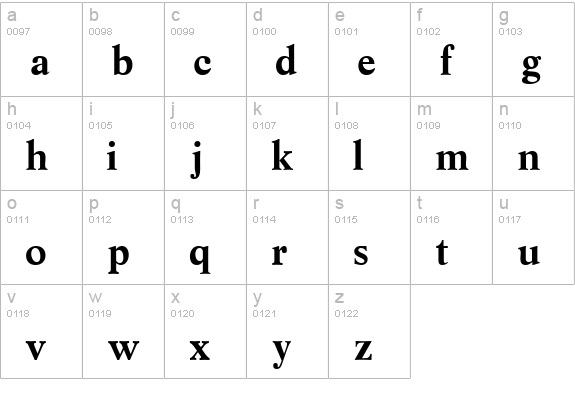
ResourceSSK Bold Font Details
ResourceSSK Bold is a strong, high-contrast variant in the ResourceSSK typeface family \xE2\x80\x94 well suited to headlines, attention-grabbing titles, and strong calls-to-action.
ResourceSSK Bold is a visually striking and bold font that exudes confidence and power. Its strong and commanding presence makes it perfect for headlines, titles, and other attention-grabbing designs. With its thick and prominent letterforms, it demands attention and ensures that your message is communicated with impact. What sets ResourceSSK Bold apart is not only its impressive aesthetics but also the fact that it is freely available to download at FontsMarket.com. This means that you can add this remarkable font to your design arsenal without any cost. Whether you are a professional graphic designer or an aspiring artist, having access to high-quality fonts like ResourceSSK Bold can greatly enhance your creative projects. ResourceSSK Bold offers a wide range of applications, from creating eye-catching posters and flyers to designing captivating logos and branding materials. Its bold and assertive strokes are perfect for making a statement and grabbing the viewer's attention instantly. Additionally, its legibility ensures that your message is clear and easy to read, even from a distance. This font's versatility is further enhanced by its compatibility with various design software and platforms, making it convenient to use in different creative projects. Whether you are working on a print design or a digital project, ResourceSSK Bold will adapt seamlessly to your requirements, ensuring consistent and impactful typography. In conclusion, ResourceSSK Bold is a powerful and impactful font that is freely available to download at FontsMarket.com. With its bold and commanding presence, it is perfect for creating attention-grabbing designs that leave a lasting impression. Its versatility and compatibility make it a valuable asset for any designer, and its legibility ensures that your message is effectively communicated. Add ResourceSSK Bold to your font collection today and elevate your designs to new heights.